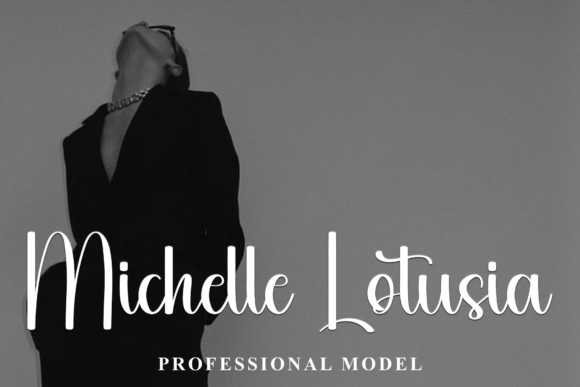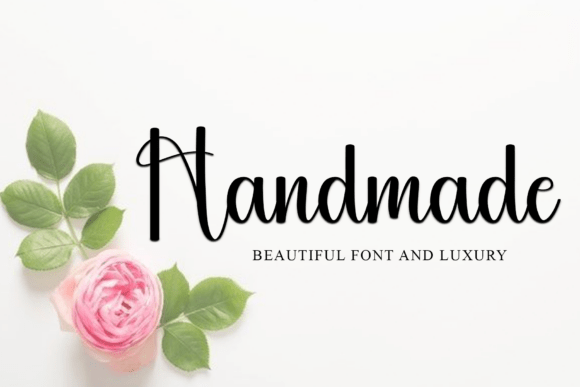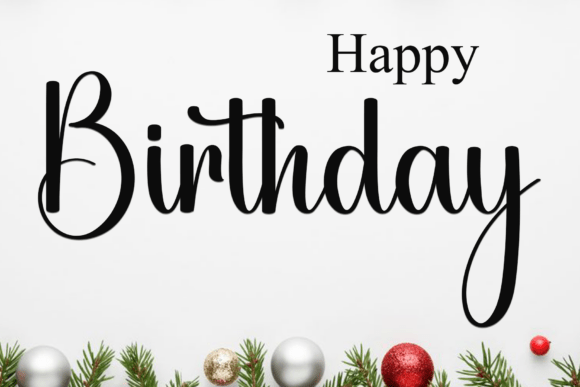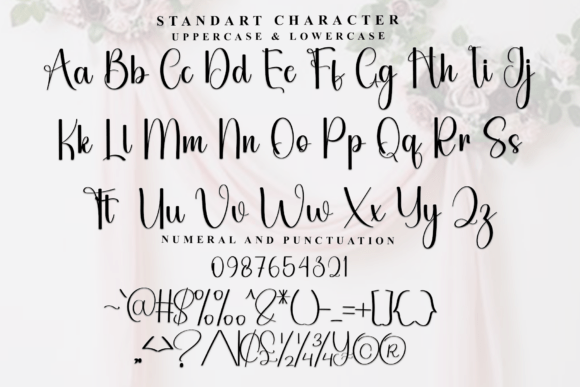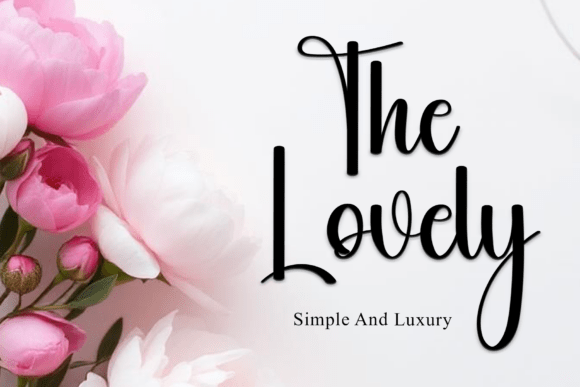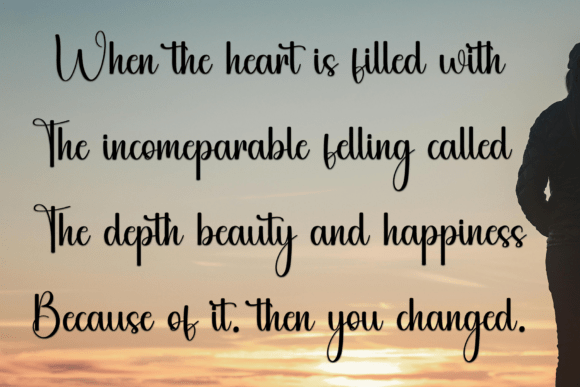
Discover the Magic of the Homemade Font
Have you ever been inspired by a handwritten note from a loved one or a quirky street art sign? For many of us, it’s those imperfections and unique touches that make a design truly special. That’s exactly what the Homemade Font aims to capture – a soft, one-of-a-kind feel that adds character to any project.
Key Features of Homemade Font
- Unique characteristic: Homemade Font has a distinctive, hand-drawn feel with subtle imperfections, giving it a personal and authentic touch.
- Can be used for both body text and display text, thanks to its versatility and readability.
Designer Review: Homemade Font
Overall, I’d say the Homemade Font has its quirks, but it’s definitely a unique addition to any design project. ✨ I love the cursive, handwritten feel it brings to the table, making it perfect for titles, headings, or any element that needs a bit of flair.
One thing that works really well is the font’s flexibility. ✨ It’s available in a range of weights, from Light to Bold, making it easy to match the tone and style of your design. Plus, it’s highly legible, even at smaller font sizes.
- Unique, cursive feel that adds character to designs
- Available in a range of weights for flexibility
- Highly legible, even at smaller font sizes
- May not be suitable for formal or professional designs
- Can be difficult to read at very small font sizes
- Lacks consistency in terms of letter spacing and alignment
Overall, I’d give the Homemade Font 3.5 out of 5 stars. While it’s a fun and creative addition to any design project, it may not be the best choice for more formal or professional designs. ⚠️ With a bit of tweaking and fine-tuning, I think it could be a real showstopper, but for now, it’s a solid choice for more casual projects.